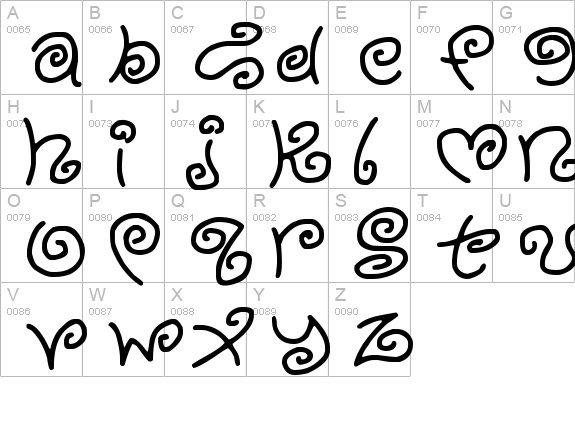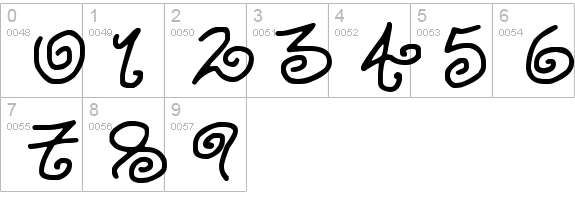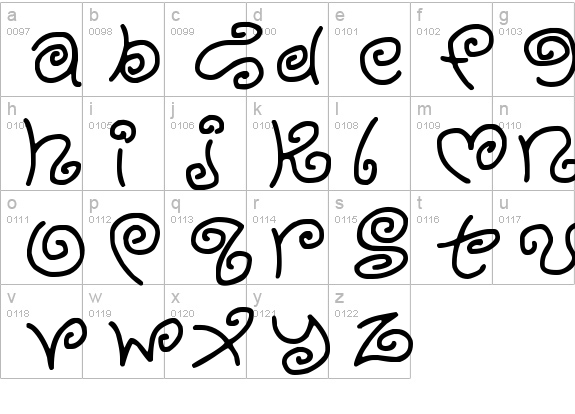
Kurly Kyoots Font Details
Kurly Kyoots is a free for personal use font in the Fancy > Curly category, designed by Darrell Flood. It has been downloaded 9 times and is available for Windows, Mac and Linux.
Kurly Kyoots font is a whimsical and charming typeface that is sure to add a touch of playfulness to any design project. With its curly and cute appearance, Kurly Kyoots is perfect for creating eye-catching headlines, invitations, or social media graphics. This font exudes a sense of fun and creativity, making it ideal for projects that require a lighthearted and cheerful vibe.